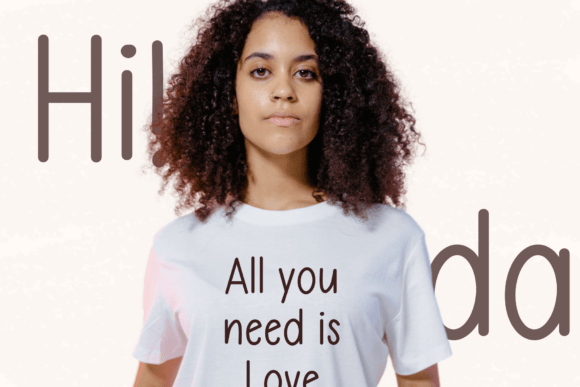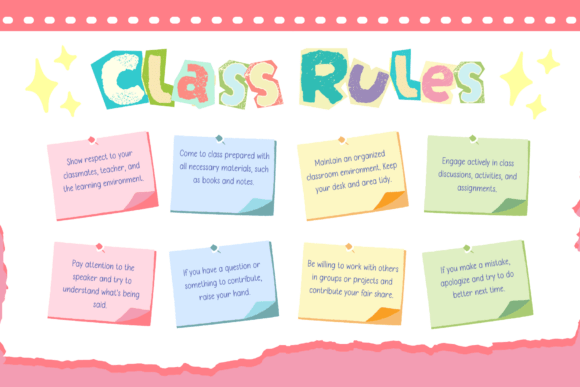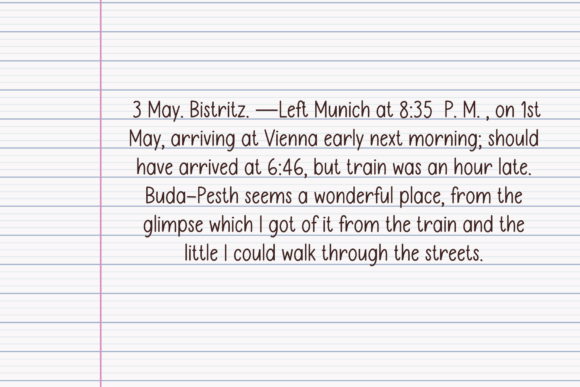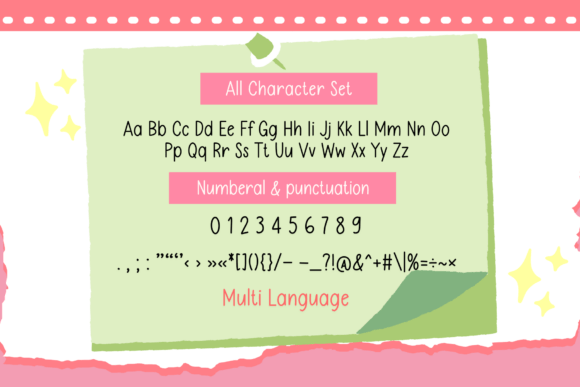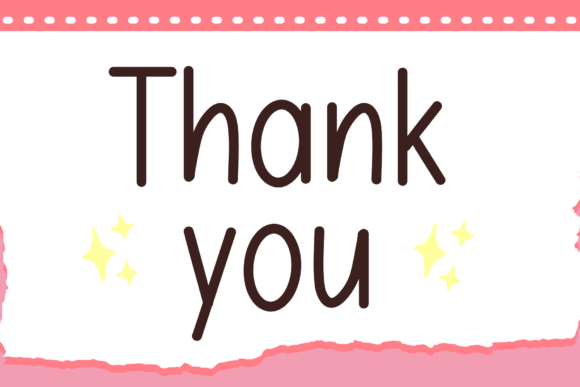
Introducing Amber Roast Font: The Perfect Handwritten Touch for Your Designs
Are you tired of using the same old fonts for your designs? Look no further! Amber Roast Font is a beautiful, handwritten font that embodies playfulness and authenticity, making it the perfect choice for all your favorite projects. Whether you’re a designer, crafter, or DIY enthusiast, this font is sure to add a touch of personality to your work.
What is Amber Roast Font?
Amber Roast Font is a unique, handwritten font that is designed to bring a sense of warmth and friendliness to your designs. Its playful and authentic feel makes it perfect for a wide range of projects, from blog posts and logos to branding, ads, invitations, greeting cards, planners, photo albums, decorations, and much more.
Characteristics of Amber Roast Font
So, what makes Amber Roast Font so special? Here are just a few of its key characteristics:
• Handwritten feel: Amber Roast Font has a beautiful, handwritten feel that gives it a personal and authentic touch.
• Playful and fun: This font is perfect for designs that require a playful and fun vibe, such as invitations, greeting cards, and decorations.
• Versatile: Amber Roast Font can be used for a wide range of projects, from digital designs to print materials.
• Easy to read: Despite its handwritten feel, Amber Roast Font is easy to read and understand, making it perfect for body text and captions.
Uses for Amber Roast Font
So, what can you use Amber Roast Font for? The possibilities are endless! Here are just a few ideas to get you started:
• Blog posts: Add a personal touch to your blog posts with Amber Roast Font. It’s perfect for headings, subheadings, and body text.
• Logos and branding: Create a unique and memorable logo for your brand with Amber Roast Font. Its playful feel makes it perfect for businesses that want to stand out.
• Invitations and greeting cards: Add a touch of personality to your invitations and greeting cards with Amber Roast Font. It’s perfect for birthdays, weddings, and other special occasions.
• Decorations: Use Amber Roast Font to add a personal touch to your decorations, such as party banners, garlands, and signs.
• Planners and photo albums: Create a beautiful and functional planner or photo album with Amber Roast Font. Its easy-to-read feel makes it perfect for body text and captions.
Why Choose Amber Roast Font?
So, why should you choose Amber Roast Font for your designs? Here are just a few reasons:
• Unique and creative: Amber Roast Font is a unique and creative font that will set your designs apart from the rest.
• Versatile: Amber Roast Font can be used for a wide range of projects, from digital designs to print materials.
• High-quality: This font is of high quality, with clear and crisp lines that will look great in any design.
Font Name Amber Roast Font
Author Brown Cupple Fonts
In conclusion, Amber Roast Font is a beautiful, handwritten font that embodies playfulness and authenticity. Its unique feel makes it perfect for a wide range of projects, from blog posts and logos to branding, ads, invitations, greeting cards, planners, photo albums, decorations, and much more. With its ease of use, versatility, and high-quality design, Amber Roast Font is the perfect choice for designers, crafters, and DIY enthusiasts looking to add a personal touch to their work.